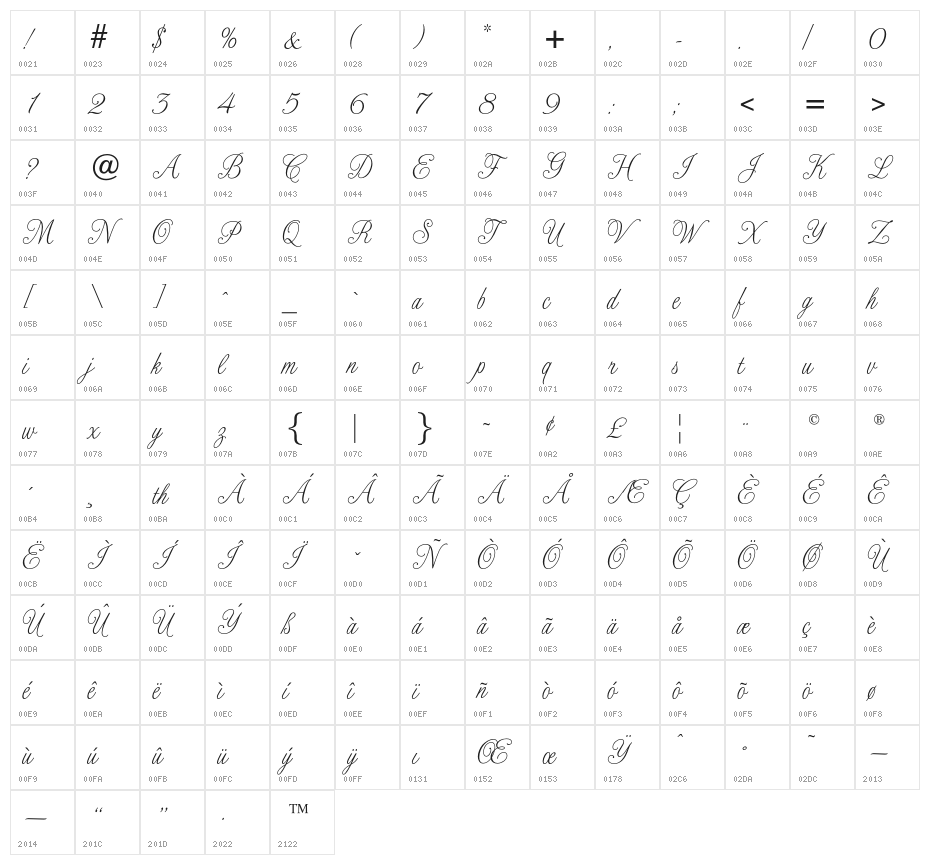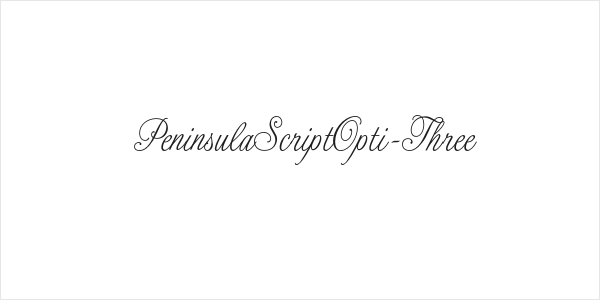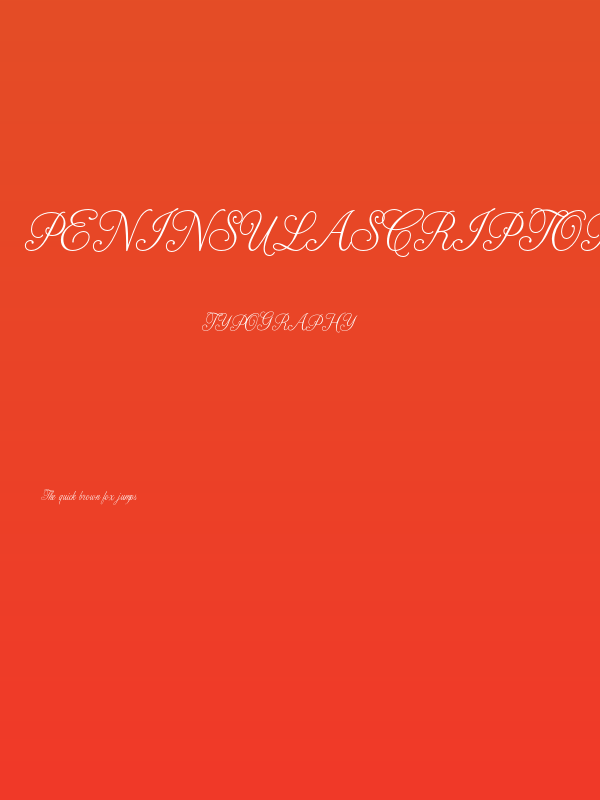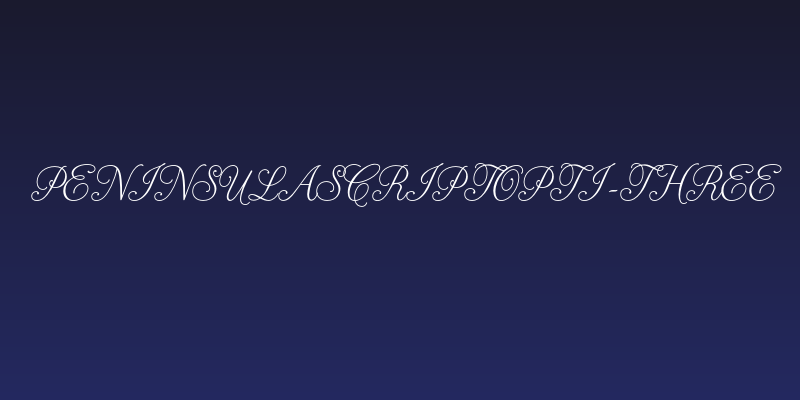
PeninsulaScriptOpti-Three Font
PeninsulaScriptOpti-Three Description
This elegant script font features flowing, cursive letterforms with a sophisticated and graceful appearance. The uppercase letters are adorned with intricate loops and swirls, giving them a decorative flair. The lowercase letters maintain a smooth, connected style that enhances readability while retaining an artistic touch. The numerals are consistent with the script style, offering a cohesive look across all characters. Special characters are designed with the same attention to detail, ensuring they blend seamlessly with the rest of the font. This font exudes a sense of luxury and refinement, making it ideal for formal and creative applications.
| Overall Style | Elegant |
| Use Case | Invitations, Branding, Packaging |
| Proposed Projects | Ideal for wedding invitations, elegant branding, luxury product packaging, and formal event programs. |